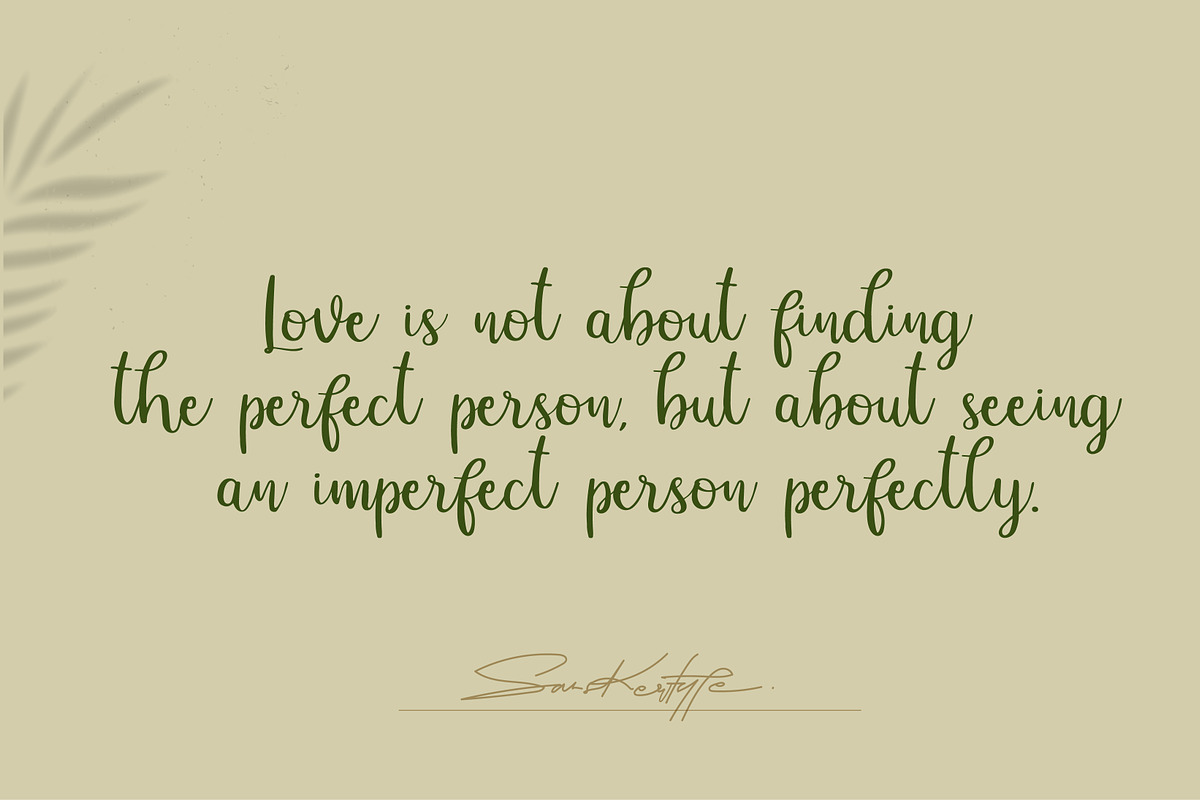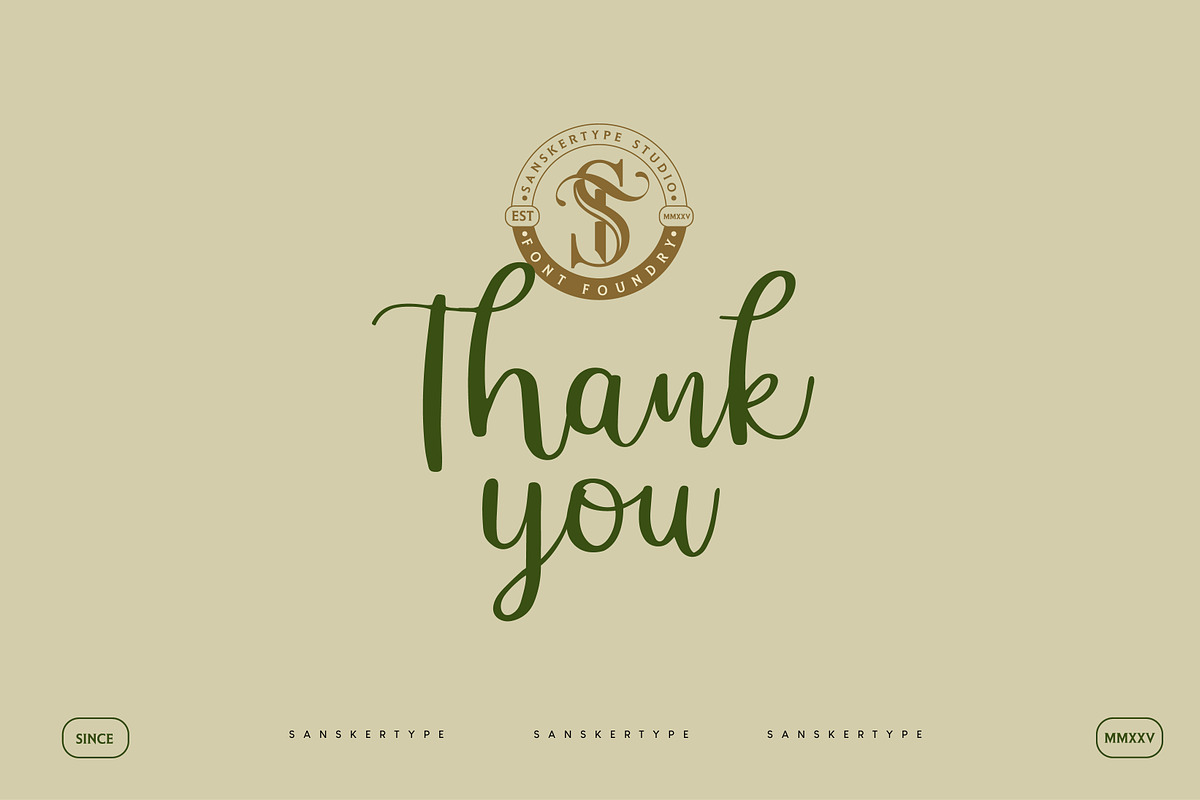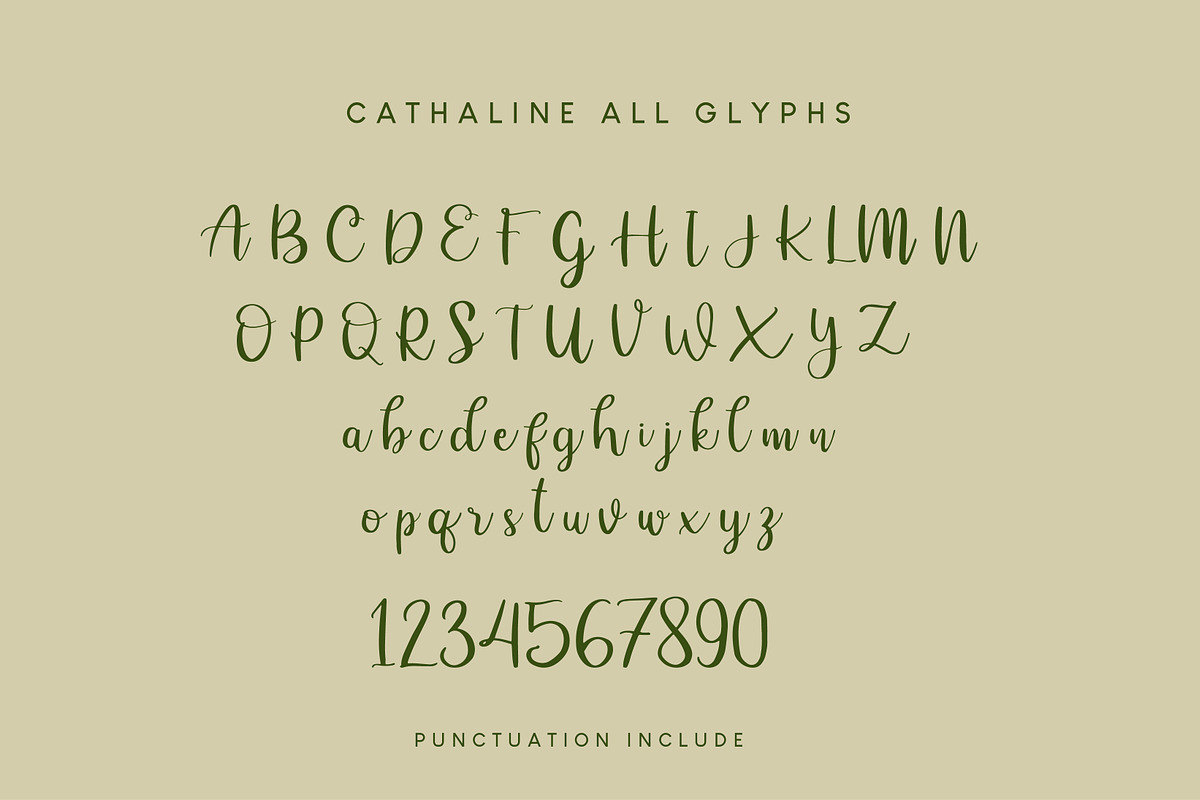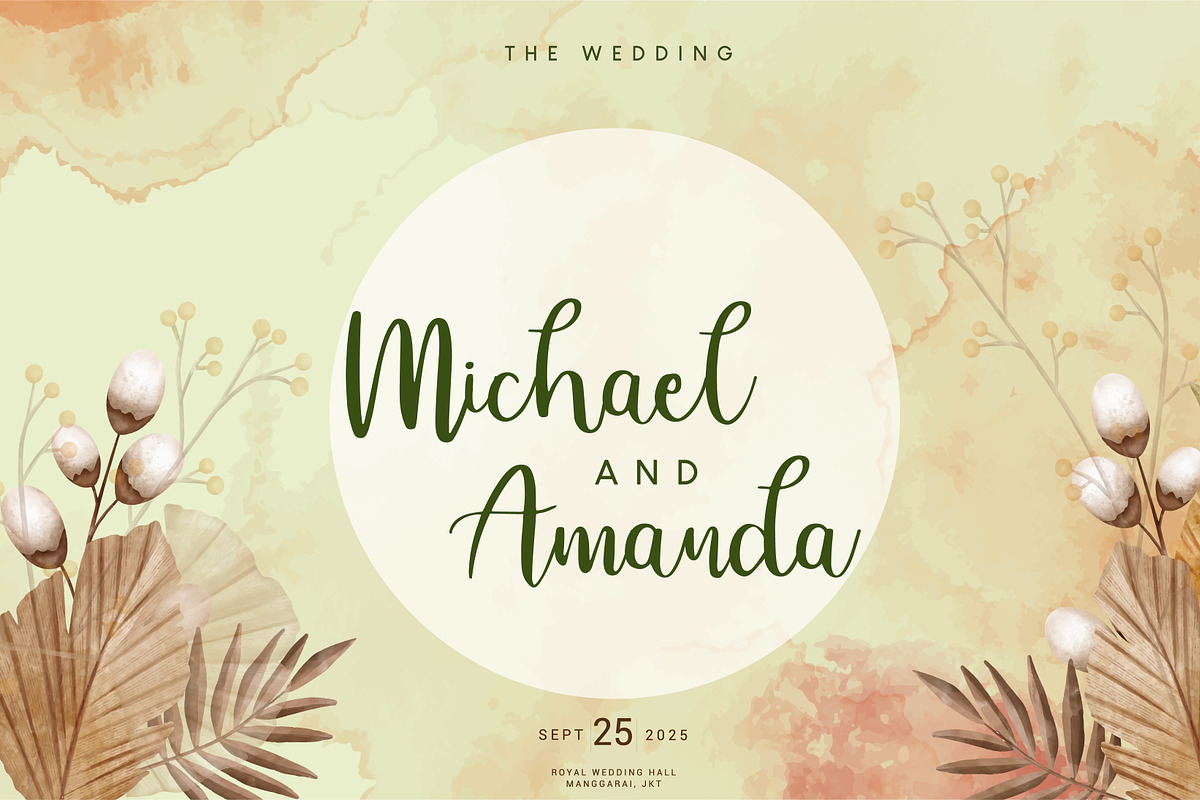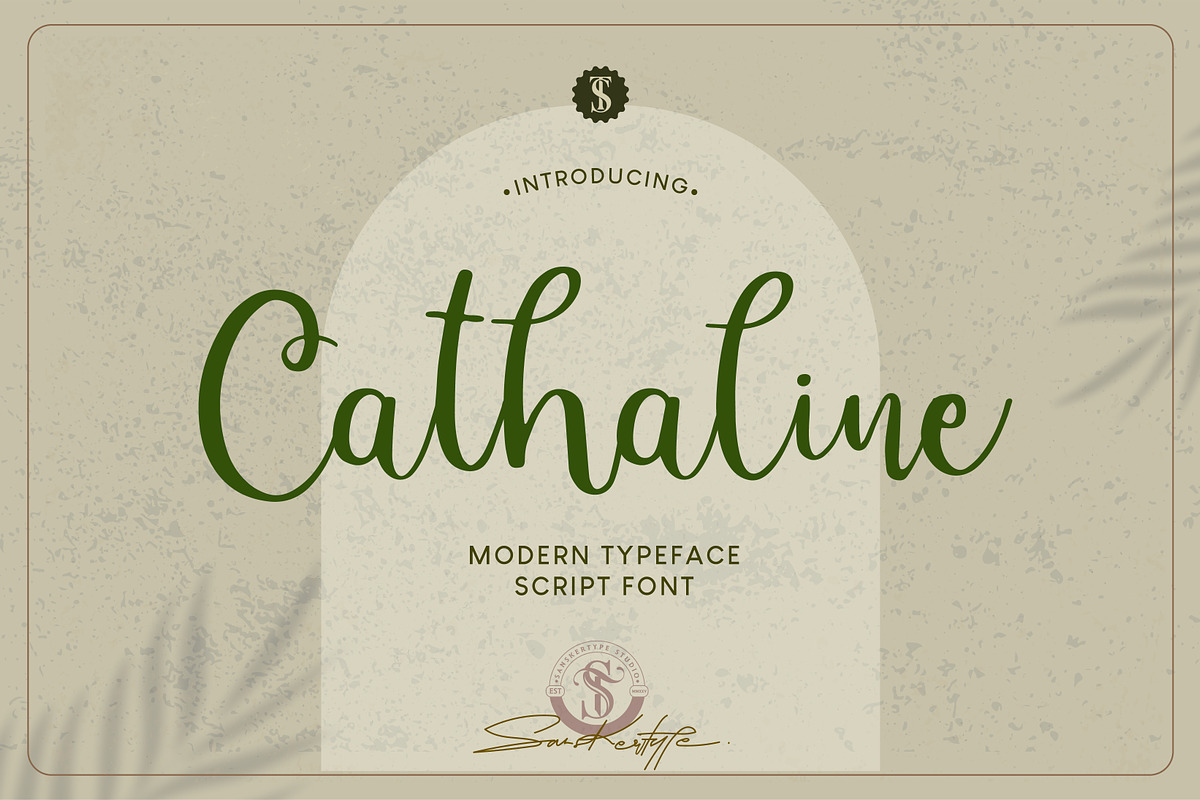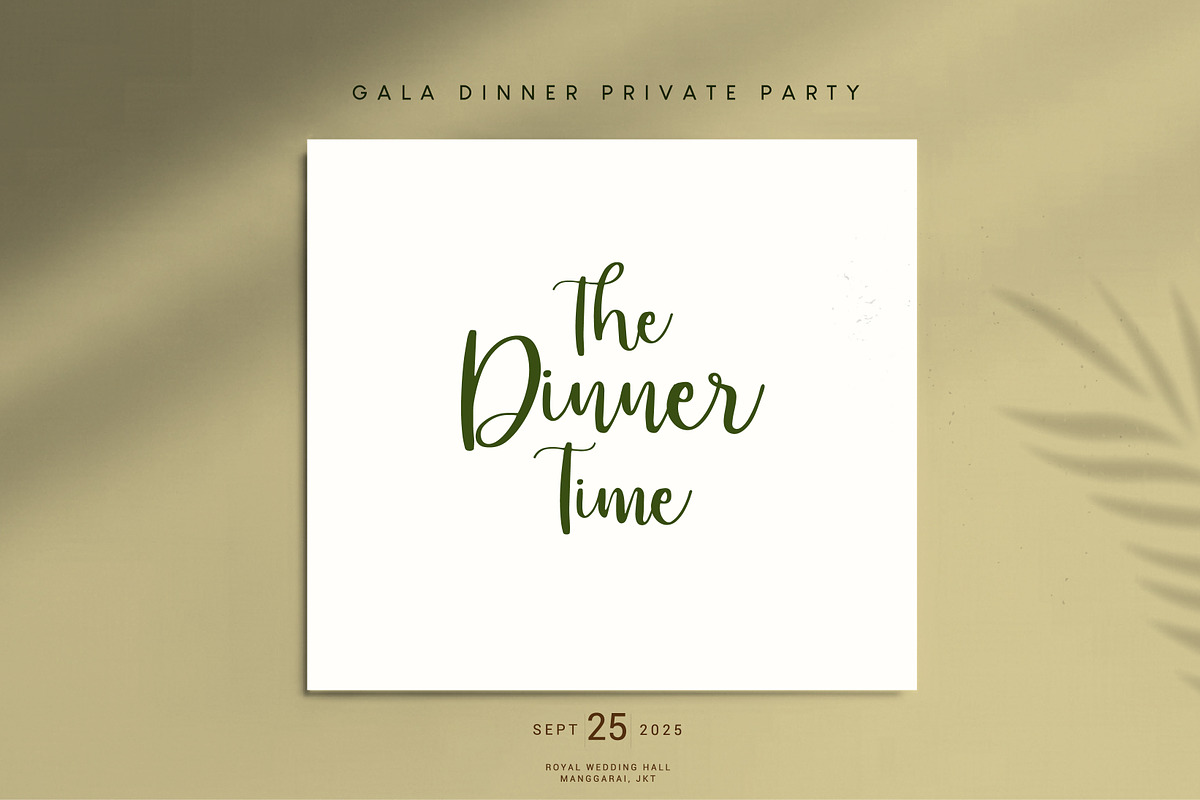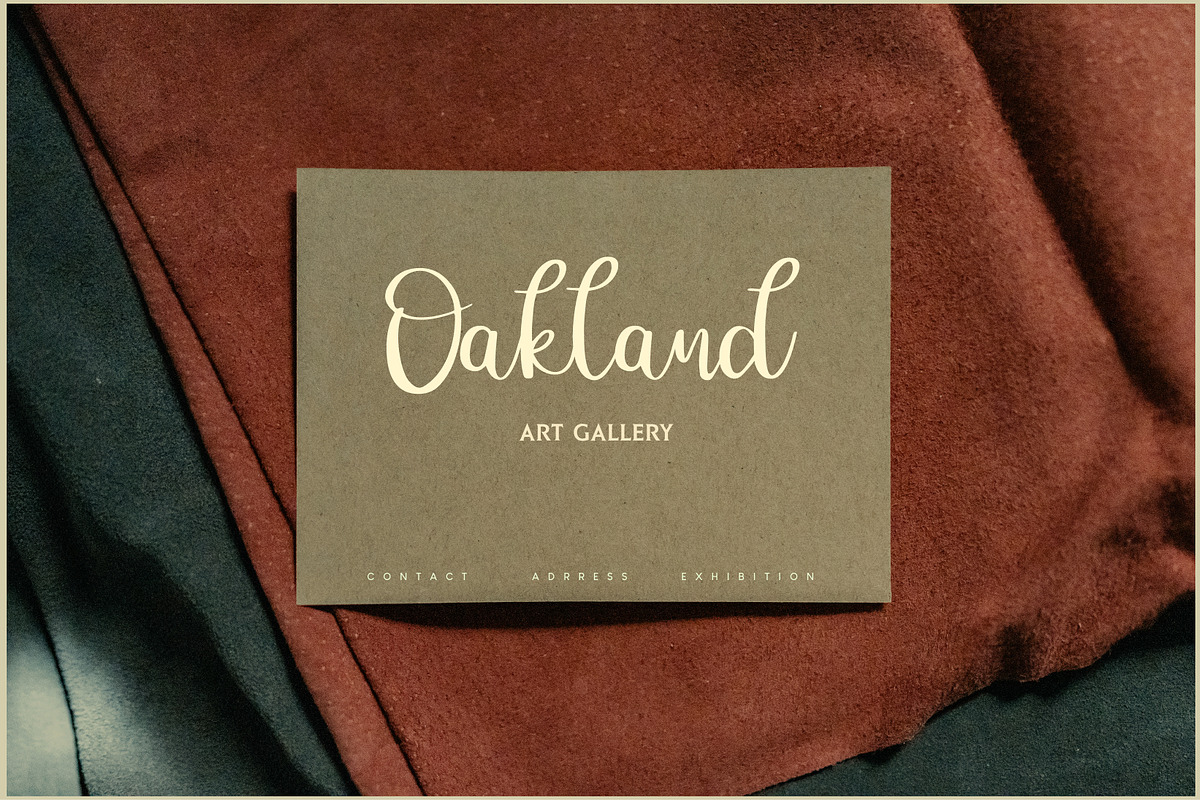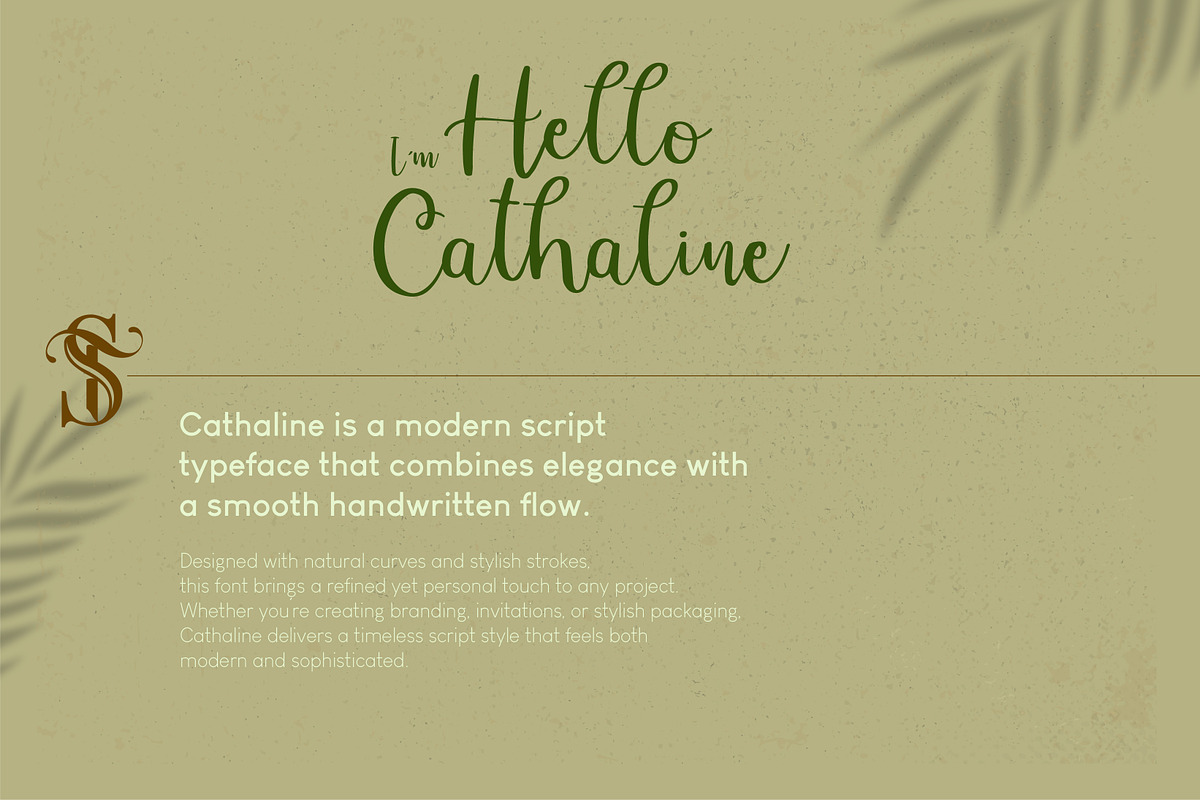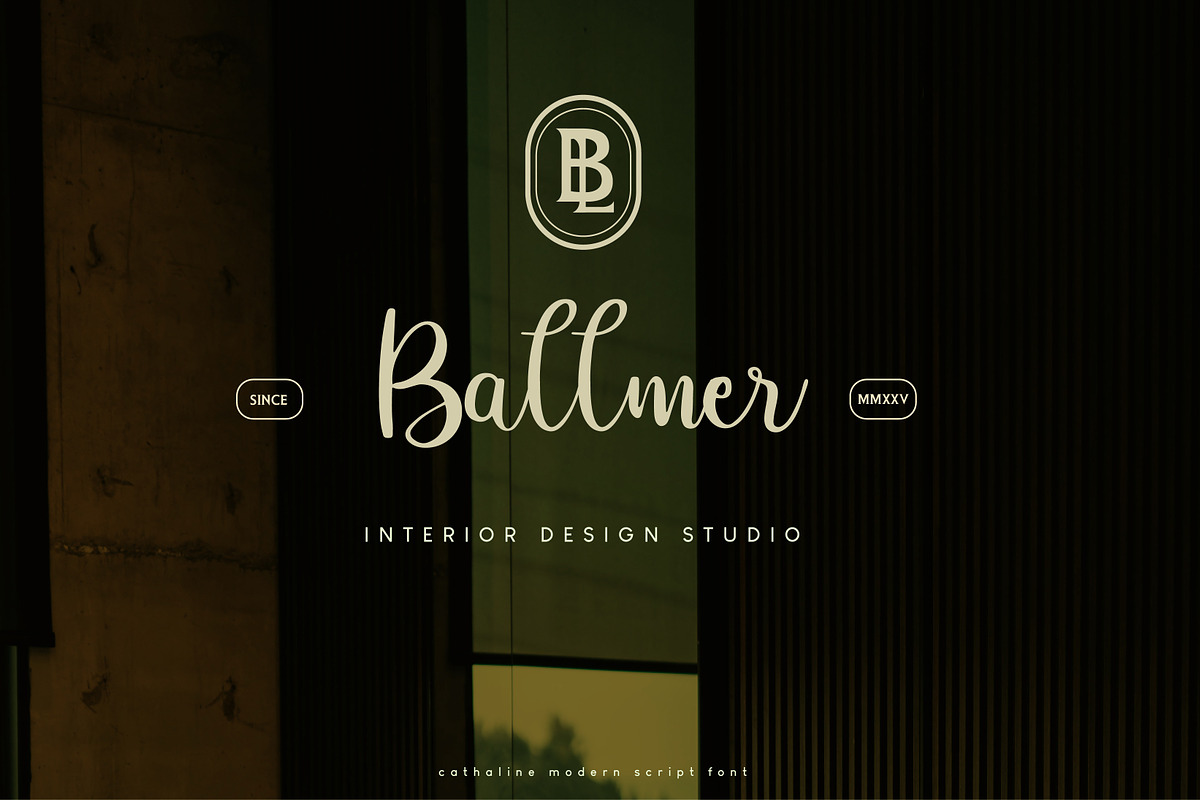
Cathaline - Modern Script
Cathaline is a modern script typeface with a graceful handwritten flow. Its smooth strokes and elegant curves make it perfect for branding, wedding invitations, packaging, and any design that needs a feminine and stylish touch. Bring sophistication and warmth to your projects with Cathaline Script Font.
With its timeless look and graceful character, Cathaline will elevate your creative work and make your designs stand out beautifully.
- Uppercase & Lowercase Letters
- Wedding invitations & stationery
- Feminine branding & logo design
- Stylish product packaging & labels
- Greeting cards & quotes
- Social media graphics & editorial design